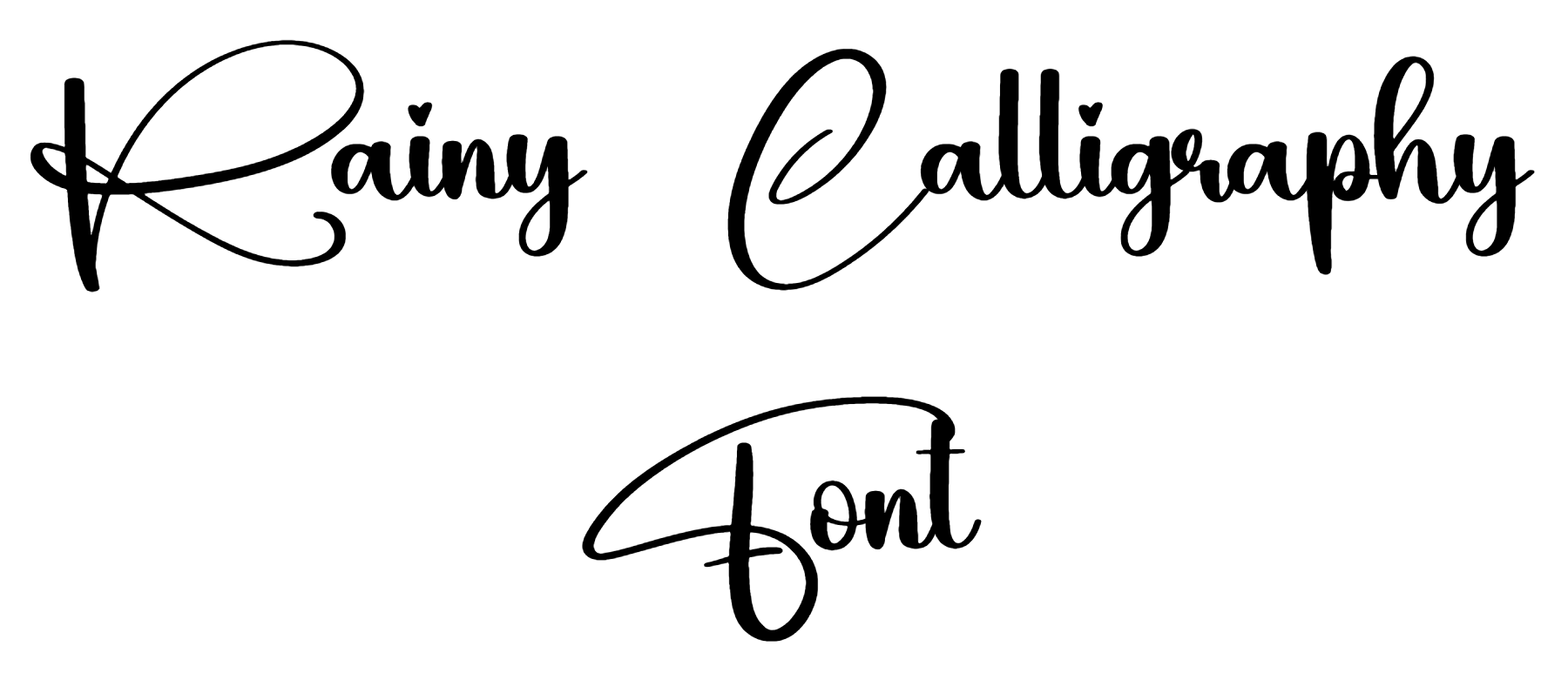
Rainy Calligraphy
Rainy Calligraphy is a calligraphy font. The letters have the smooth movement of real pen lettering, which is why even a single name looks special in it. It's a free download, and you can try it with your own text in the preview above first.
What You Can Type With Rainy Calligraphy
With complete upper and lowercase letters and all ten digits, Rainy Calligraphy is ready for real wording, not just a single headline. Common punctuation such as &, !, ? and @ is included as well. It also has the accented letters you need for Spanish, French, German, Portuguese and Italian.
Where Rainy Calligraphy Works Best
Think of Rainy Calligraphy for wedding invitations, certificates and elegant quotes. Its lowercase letters are small compared to the capitals, so set it a size or two bigger than usual. Script fonts read best in short bursts, so keep it to names, titles and one-line quotes. Skip all caps: script capitals are drawn to start a word, not to fill one.